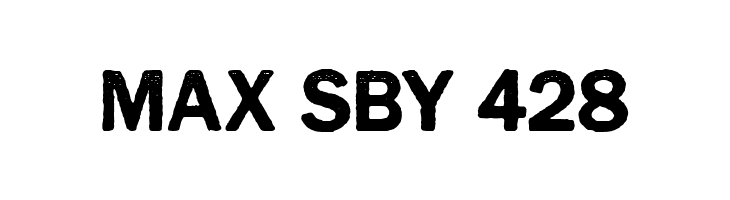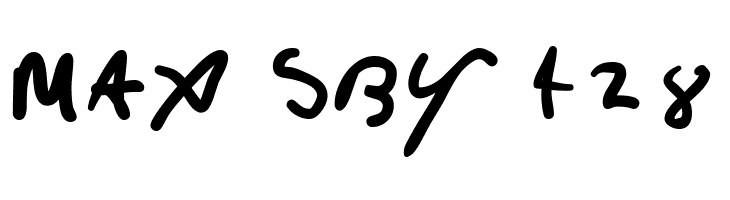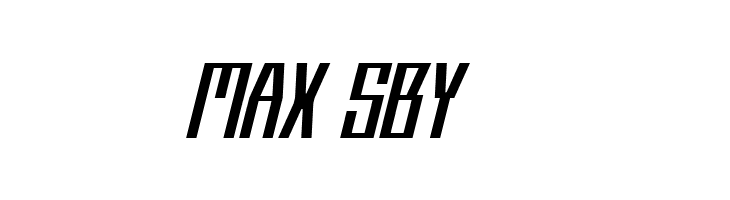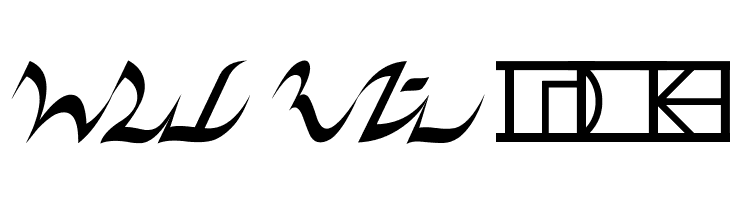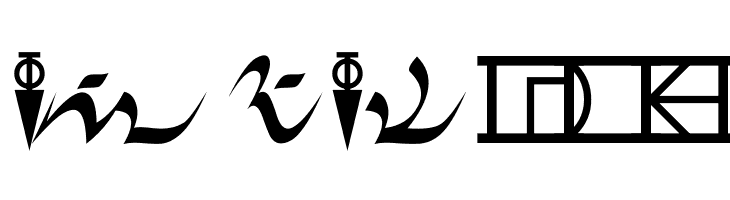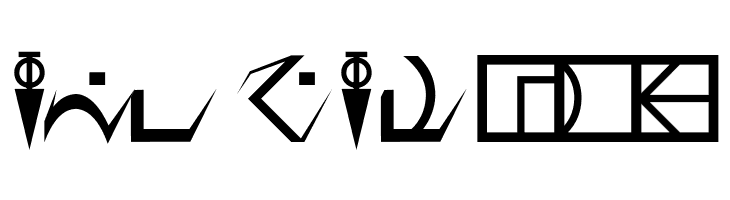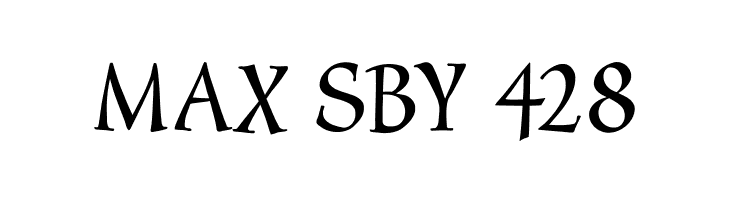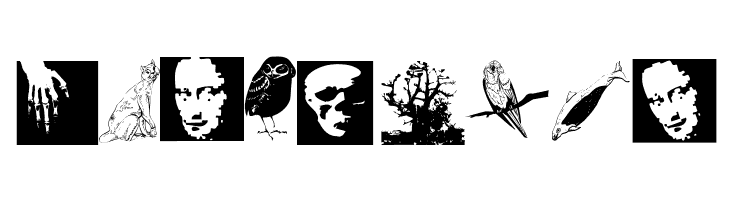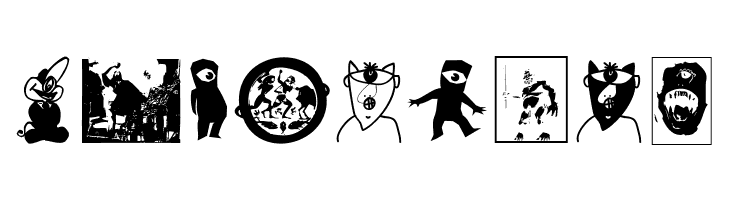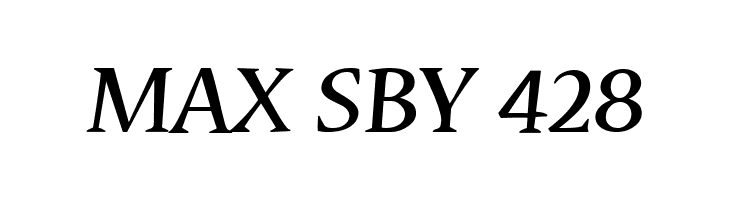
A bold serif font with high contrast, perfect for impactful headlines.
A classic serif font with elegant strokes and balanced proportions.
Elegant oblique serif font with high contrast and sharp serifs.
A classic serif font with elegant curves and medium contrast, ideal for sophisticated design projects.
A dynamic, calligraphic font with a modern twist and elegant flow.
A futuristic, angular font with sharp edges and geometric shapes.
An illustrative, pictorial font with each character as a unique drawing.
A bold, futuristic font with angular lines and a dynamic slant.
A playful, decorative font with circular embellishments and consistent stroke thickness.
A decorative set of characters resembling stylized faces within cloud-like borders.
Whimsical dingbat font with cyclops and monster illustrations.
A bold, decorative font with playful illustrations on each character.
A bold, textured font with a vintage, distressed style.
A bold, geometric font with sharp edges and modern design elements.
A bold, 3D italic font with a dynamic and edgy graffiti-like style.
A bold, 3D font with a playful and dynamic style.
A bold, distressed, and condensed font with a grungy, graffiti-like style.
A bold, distressed, and condensed italic font with a grunge texture.
A bold, distressed font with a grunge aesthetic and jagged edges.
A bold, textured, expanded italic font with a dynamic and distressed style.
A bold, distressed italic font with jagged edges and a dynamic slant.
A bold, distressed font with a rugged, grunge aesthetic.
A bold, edgy font with jagged, distressed strokes and a rebellious vibe.
A bold, distressed font with a hand-drawn, energetic style.
A casual, handwritten-style font with fluid, slightly slanted characters.
A whimsical set of pictogram characters with expressive designs.
A versatile set of clear and simple pictograms for public and transportation use.
A bold, geometric font with sharp angles and a modern aesthetic.
Abstract, grid-based display font with experimental, chaotic forms.
A bold, geometric font with a unique grid overlay, offering a modern and structured aesthetic.
A playful, pictogram-style display font inspired by prehistoric and avant-garde art.